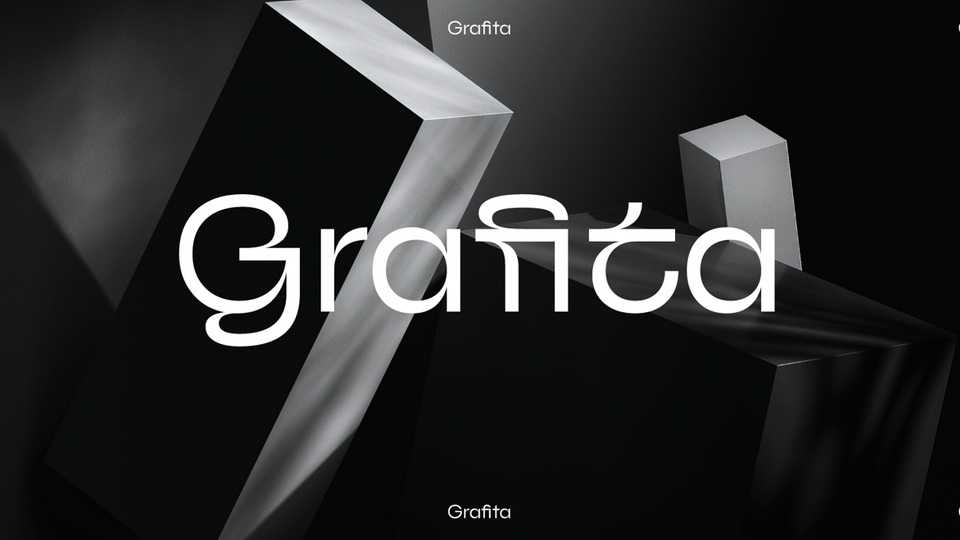
Download Grafita font, a typeface pair where one font is a strict geometric grotesque and the other is more playful and display. The combination of Grafita two fonts would be great for branding, websites and other tasks.
Designer: Slava Antipov